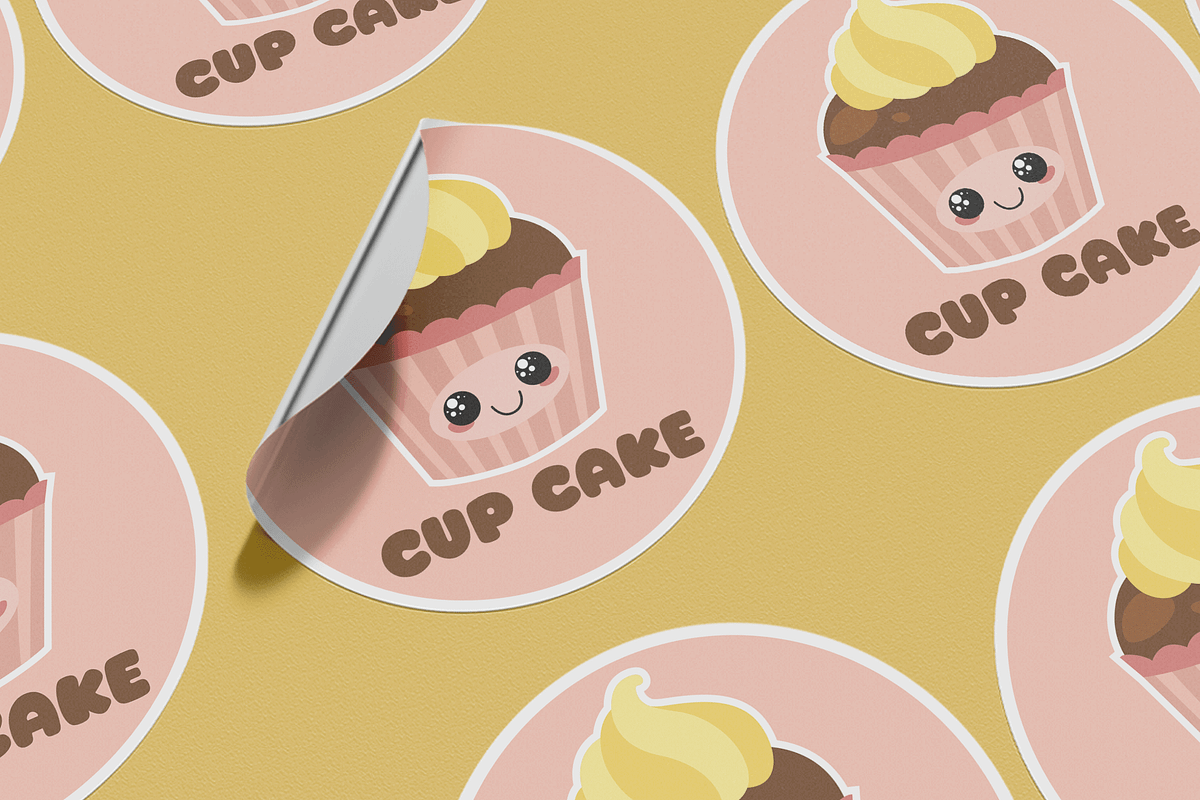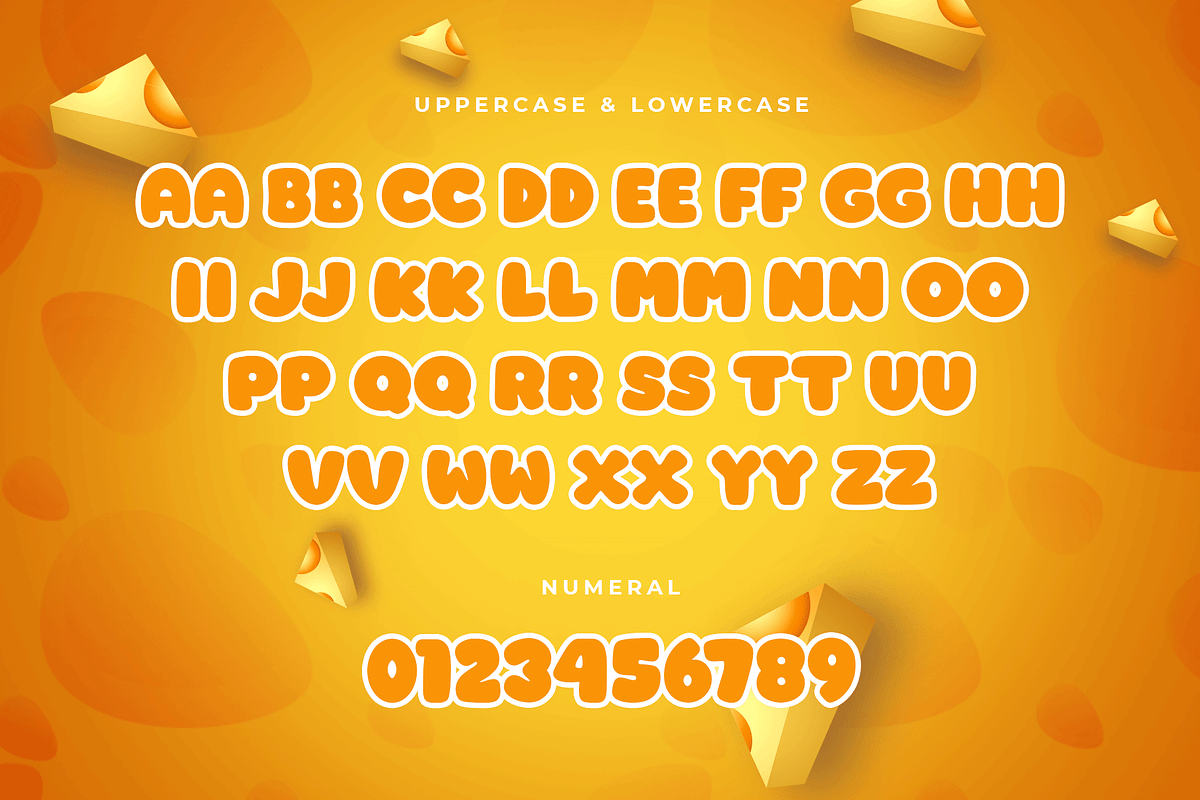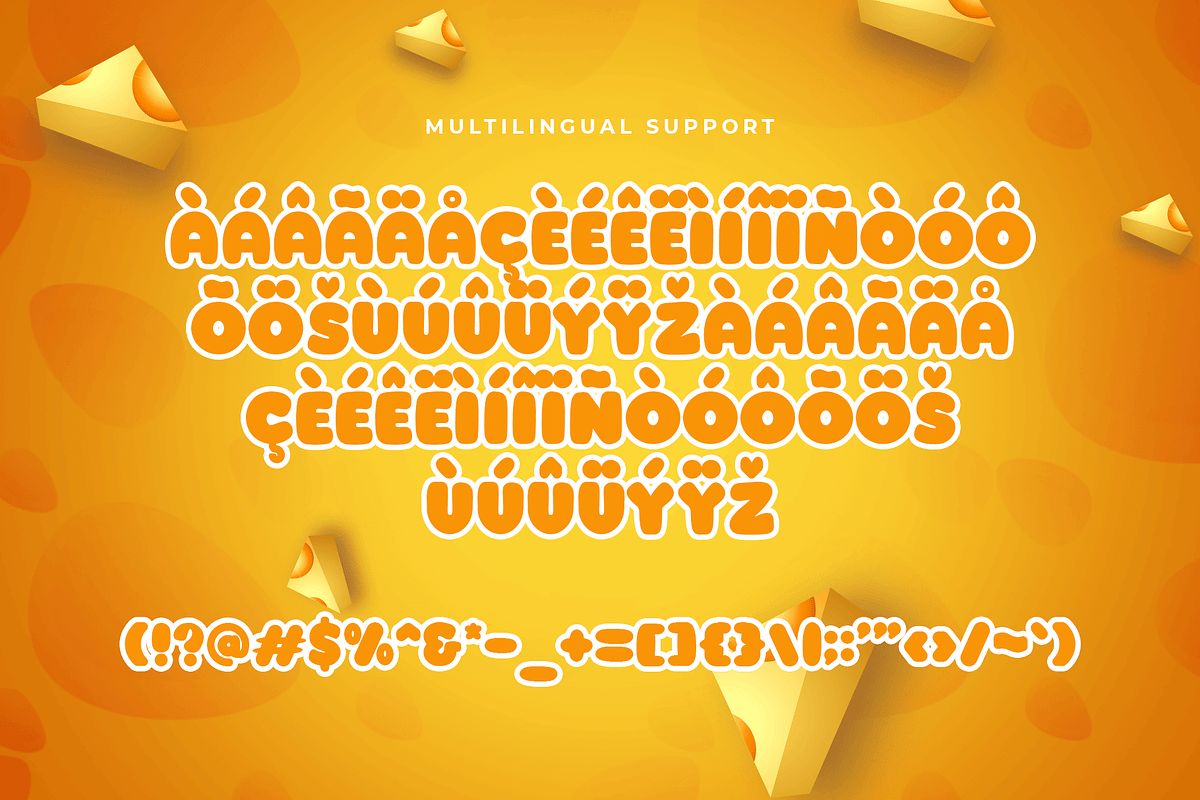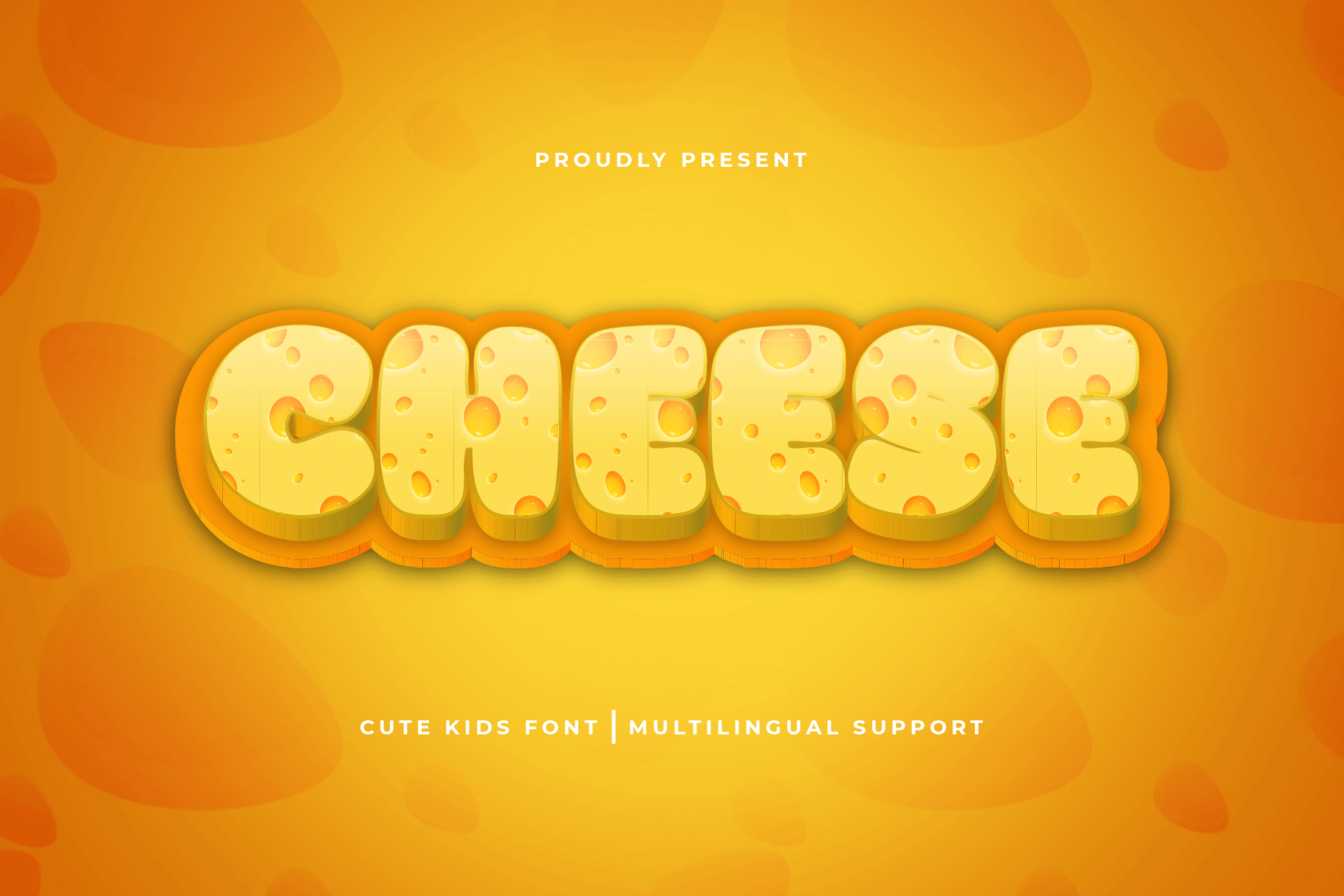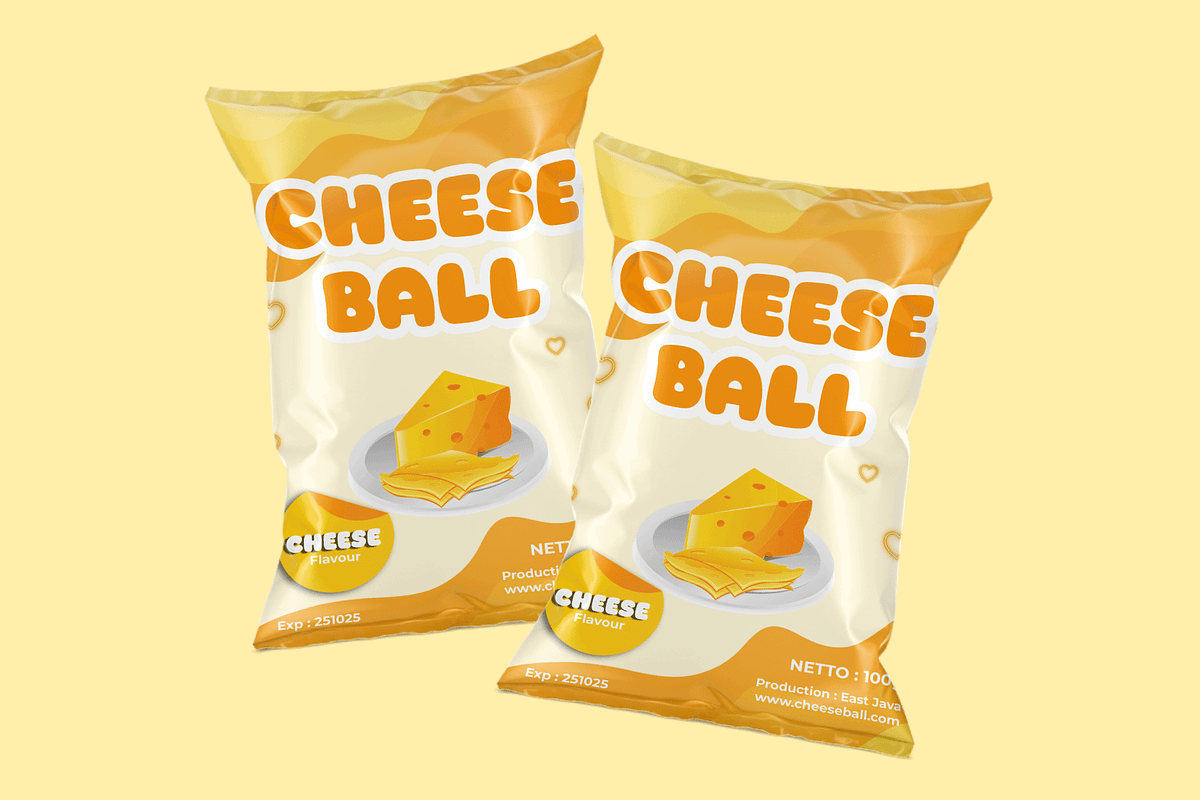
Cheese - Cute Kids Font
Introducing "Cheese," a cute kids font that brings a playful and cheerful vibe to any design project. Perfect for graphic designers, educators, and creatives seeking a whimsical typeface, Cheese offers a delightful design that captures the innocence and fun of childhood.
Ideal for children's books, educational materials, birthday invitations, posters, and toy packaging, Cheese’s friendly and rounded characters provide a warm and inviting visual appeal. Each letter is meticulously crafted to ensure readability and charm, making your designs both engaging and endearing.
The "Cheese" font includes a complete set of uppercase and lowercase letters, numbers, punctuation marks, and special characters. This versatile set ensures seamless integration into various design projects, from vibrant party invitations to fun educational resources.
Brighten up your designs with Cheese, the cute kids font that sprinkles joy on every word.